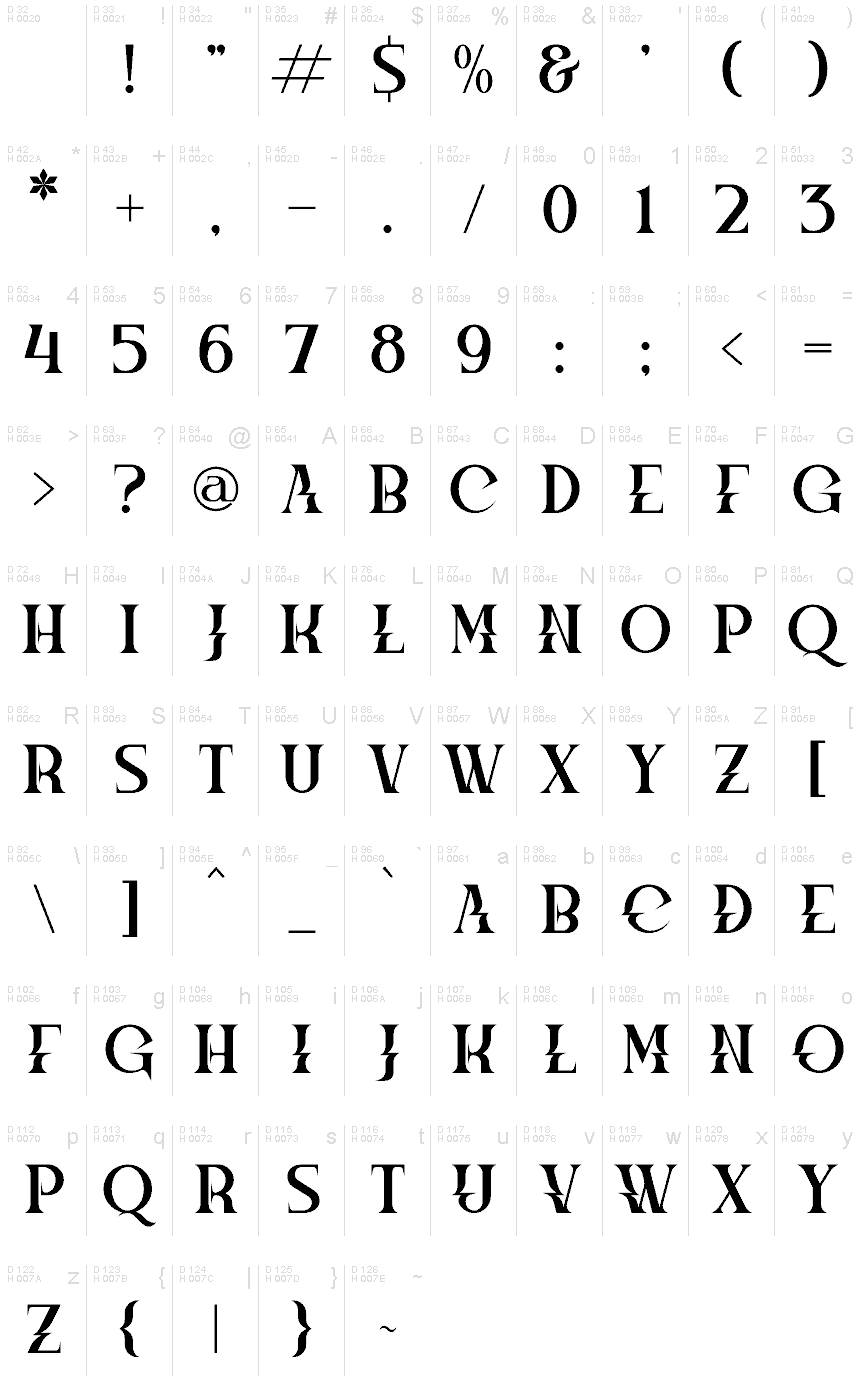
MEGPHIS
Megphis font by Storytype Studio is an ornate display font with historical influences and a classical appeal. It carries an elegant ambiance that’s both sophisticated and formal, achieved through its careful serif design. Rather than standing out too much, the font creates rhythm while offering high readability and balance in visual presentation.
This free serif font is suitable for professional use in books, magazines, digital publications, logos, product packaging/labels or any surface where classic beauty is required. Enjoy it also in invitations cards design alongside headings of all sizes or general text which requires such sophistication.